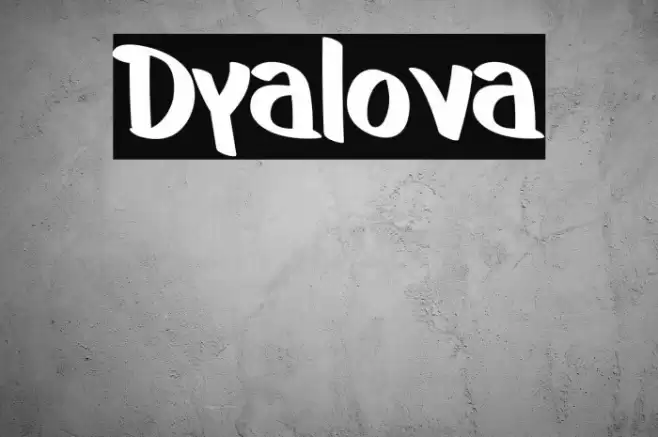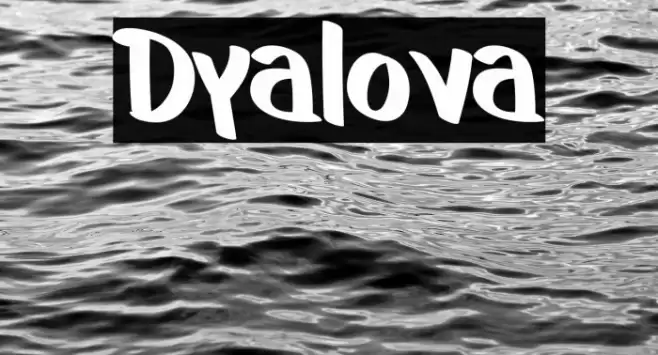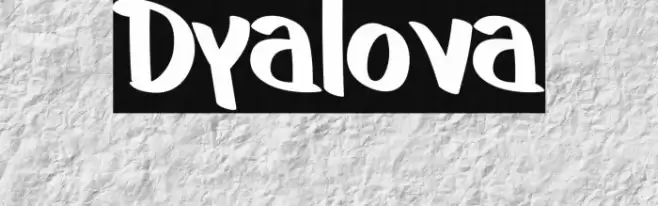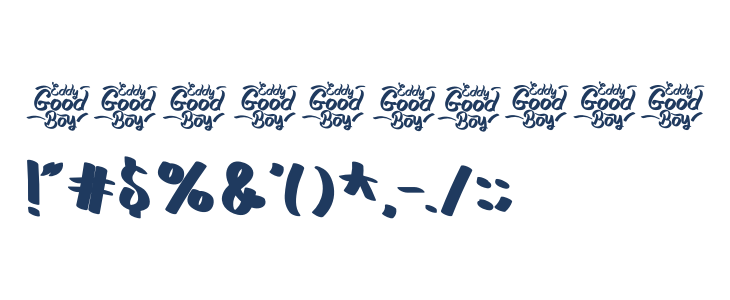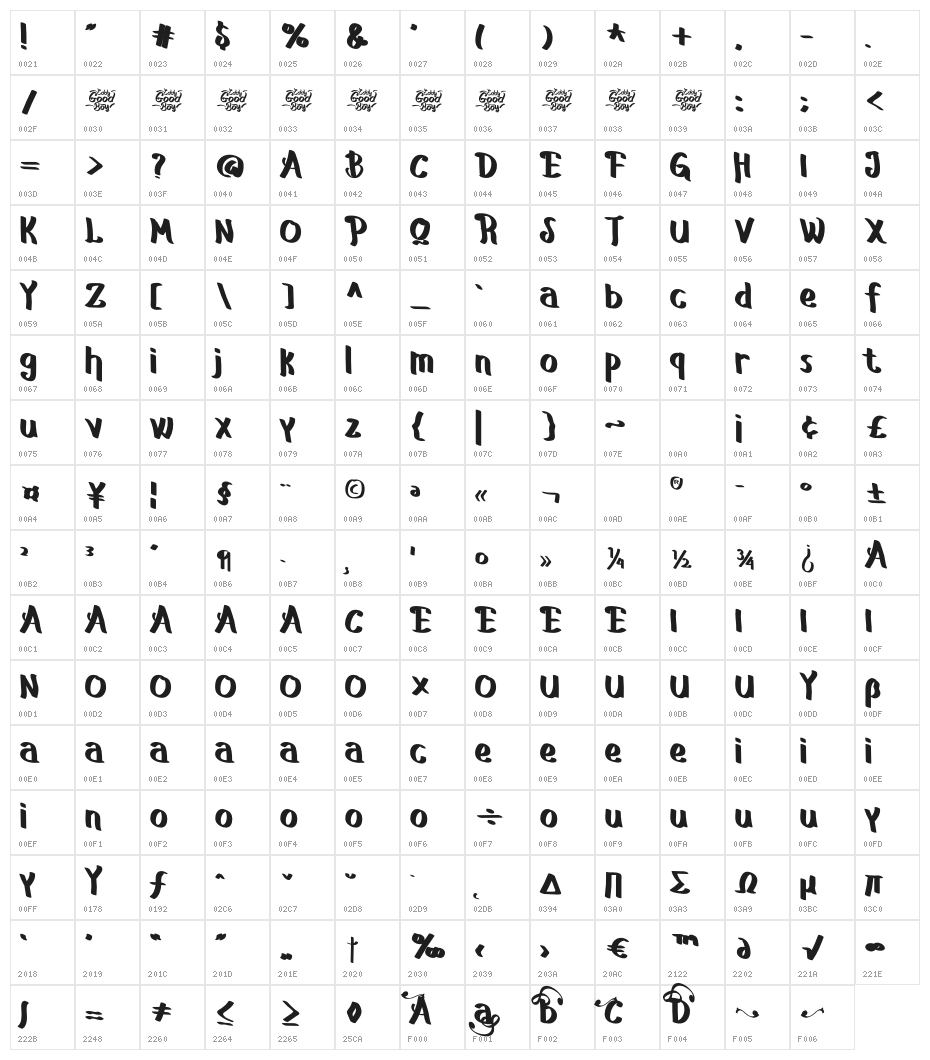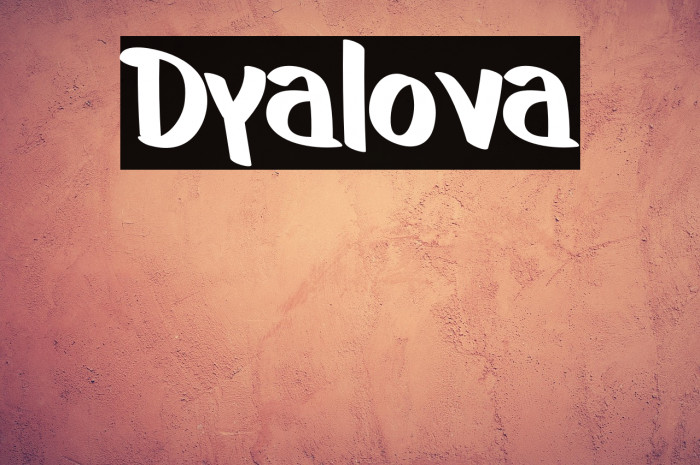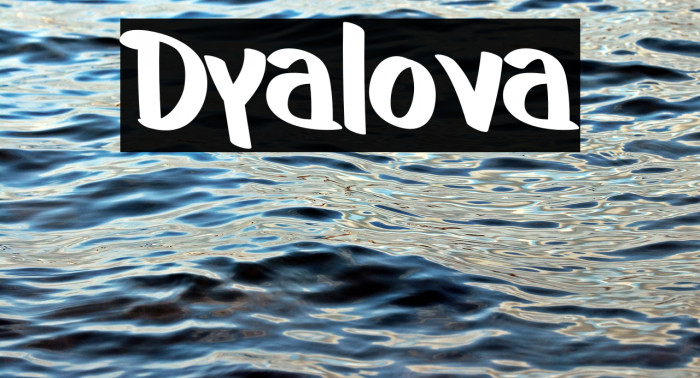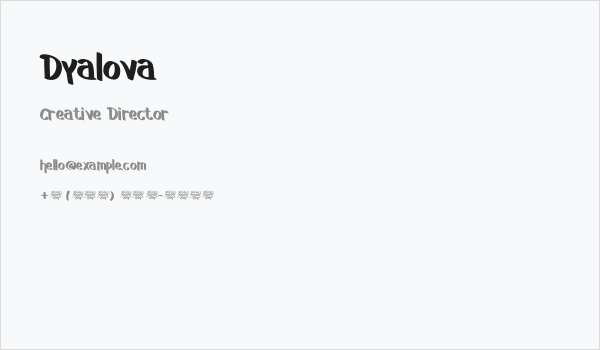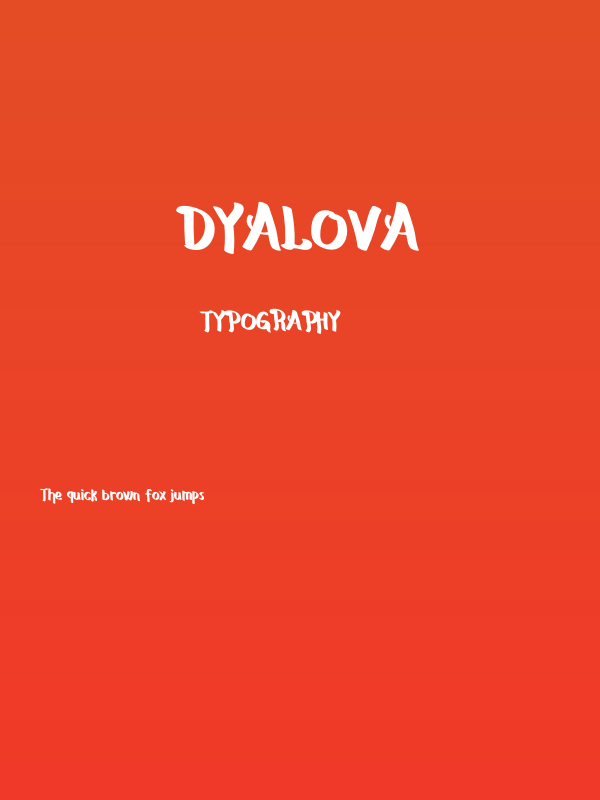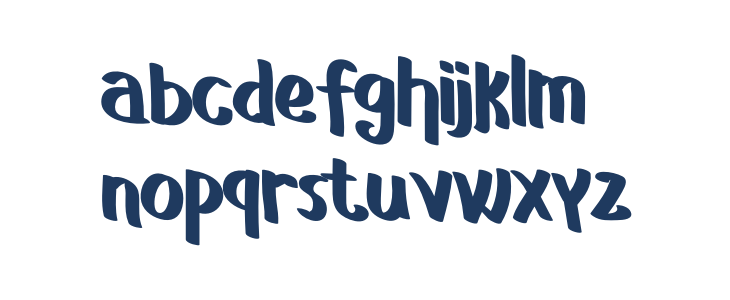
Dyalova Font
Dyalova Description
This font features a playful and bold style with a hand-drawn aesthetic. The letters are characterized by their thick, uneven strokes and whimsical curves, giving them a lively and energetic appearance. The uppercase and lowercase letters maintain a consistent style, with some letters featuring unique embellishments, such as loops and swirls. The numbers and special characters are designed to match the playful nature of the alphabet, making the font suitable for creative and informal projects. The overall look is both fun and approachable, ideal for capturing attention in a variety of settings.
A playful, bold, and hand-drawn font with whimsical curves and thick strokes from Regular fonts.
- Proposed Projects: Ideal for children's books, playful branding, party invitations, and creative posters.